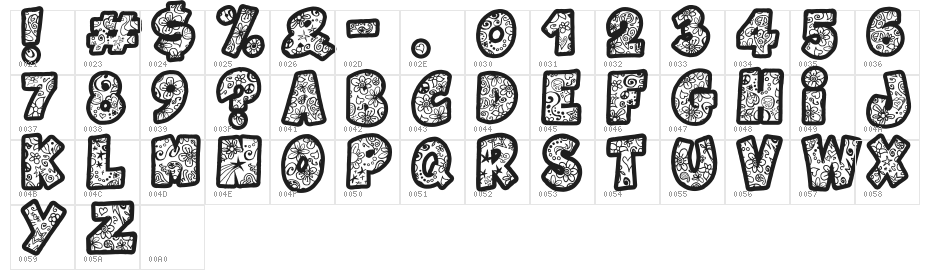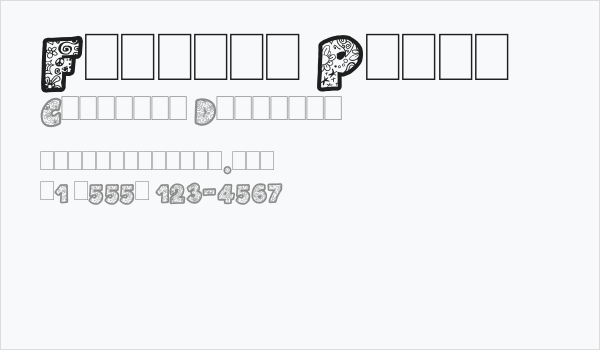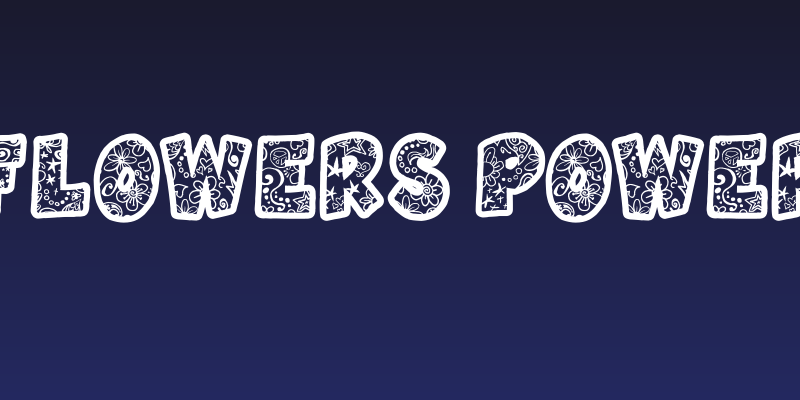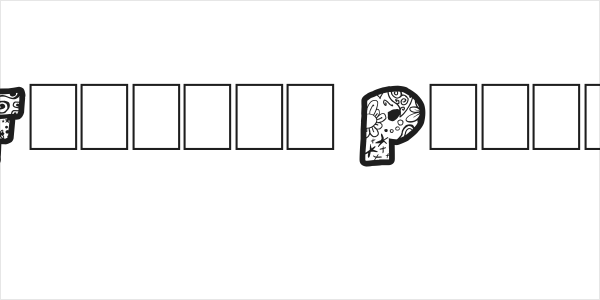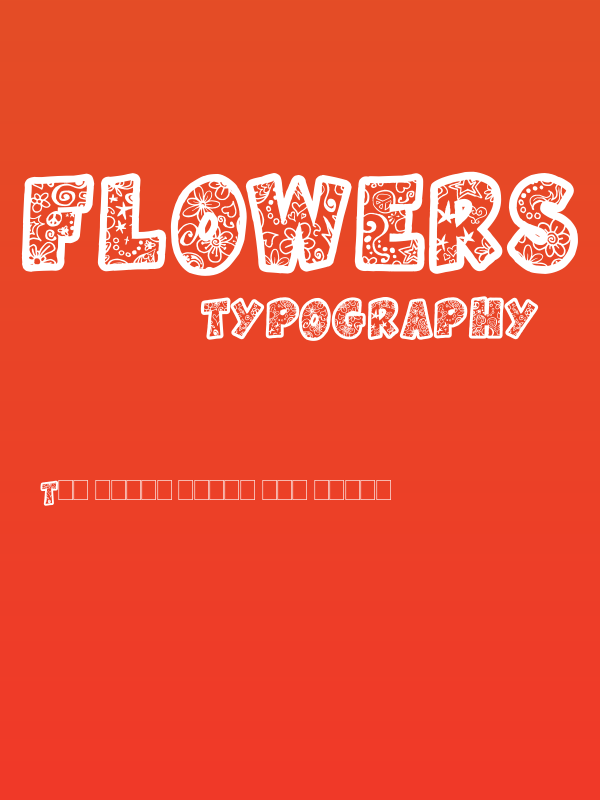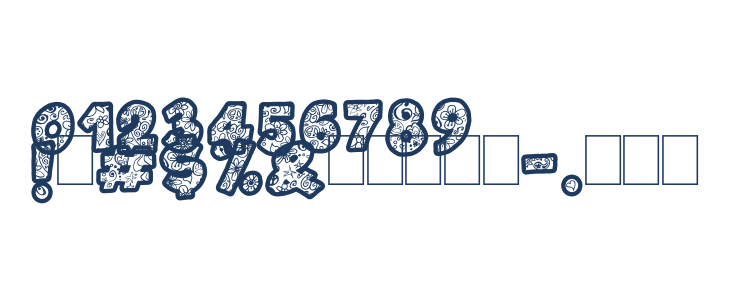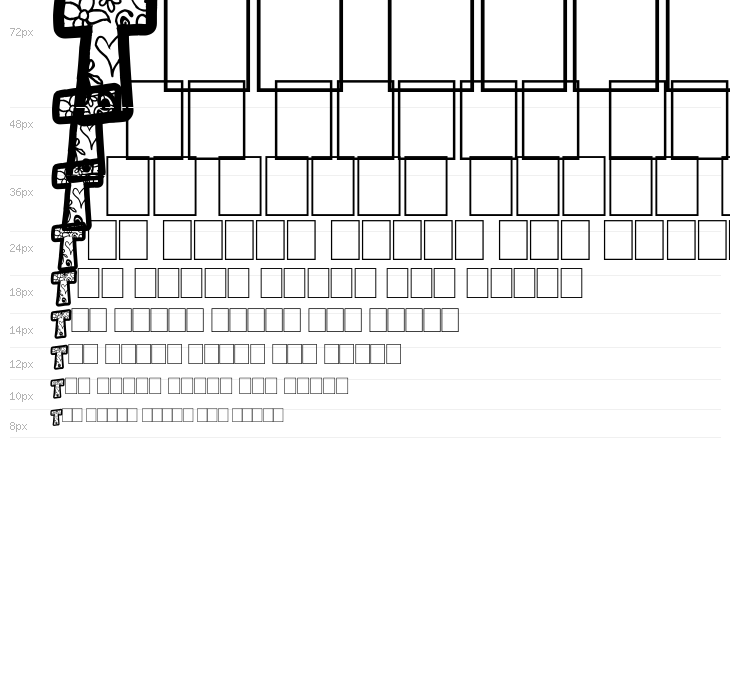
Flowers Power Font
Flowers Power Description
This font is a vibrant and playful decorative style, featuring bold, blocky characters filled with intricate floral patterns. Each letter and number is adorned with unique floral designs, creating a lively and whimsical appearance. The bold outlines enhance the visibility of the floral details, making each character stand out. This font is perfect for projects that require a touch of nature or a playful theme. The combination of boldness and detailed patterns makes it ideal for eye-catching designs.
| Use Case | Logos, Posters, Headlines |
| Proposed Projects | Ideal for greeting cards, children's book covers, posters, and any design needing a playful, nature-inspired theme. |